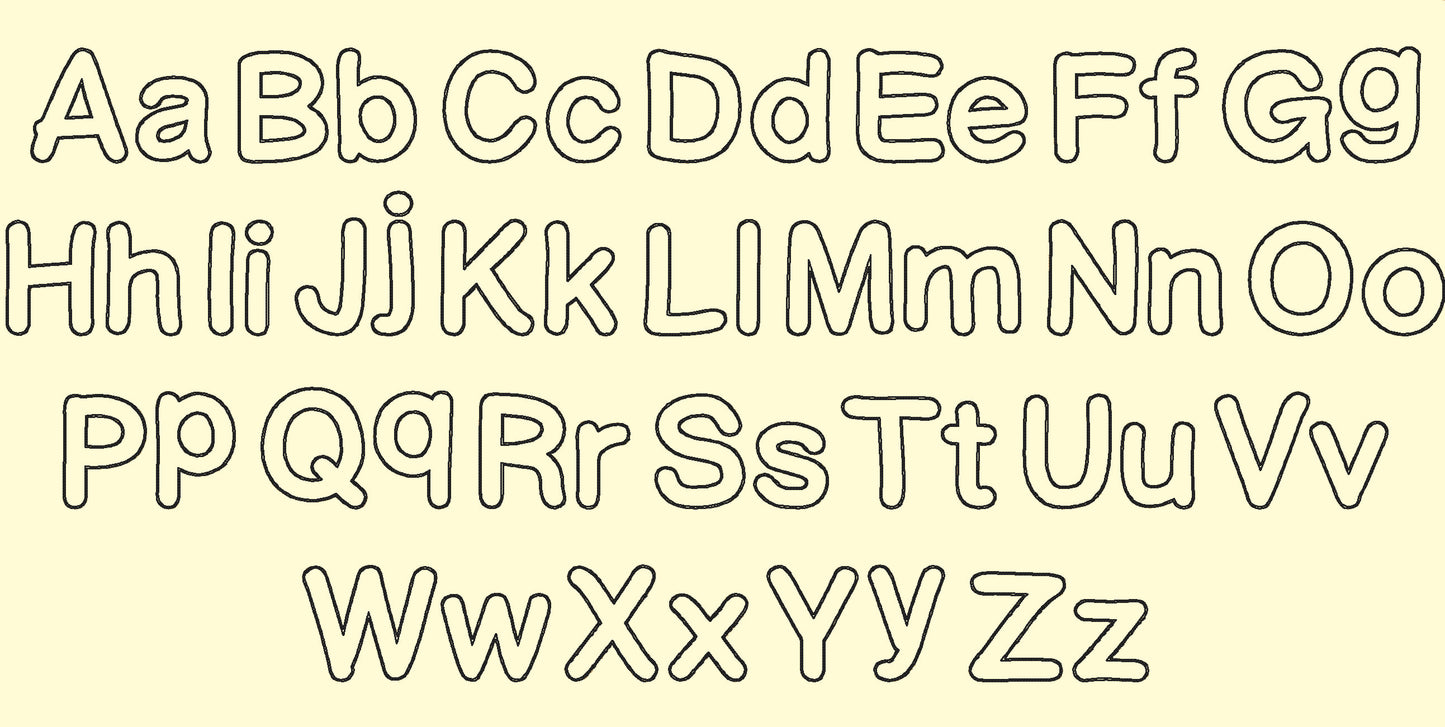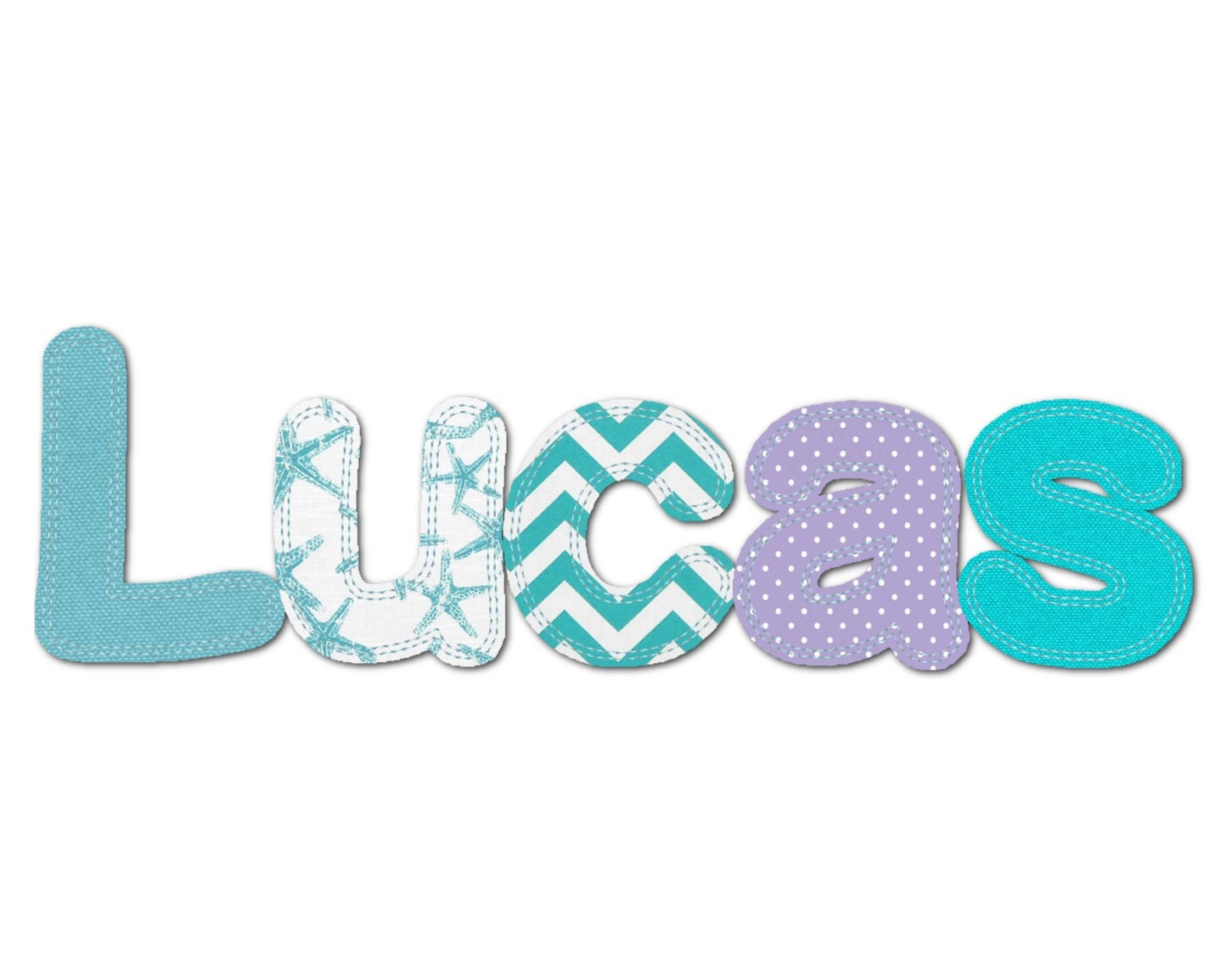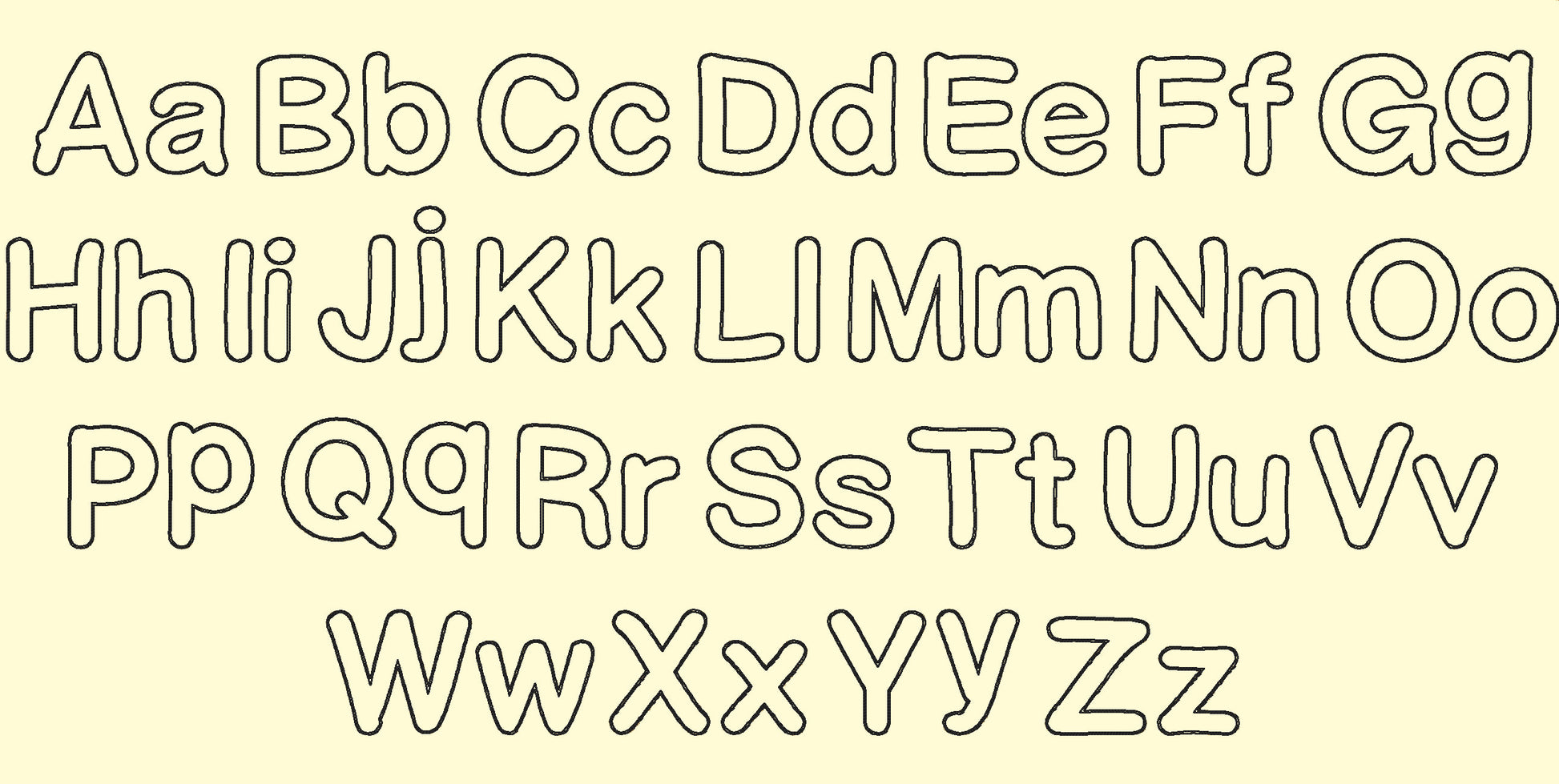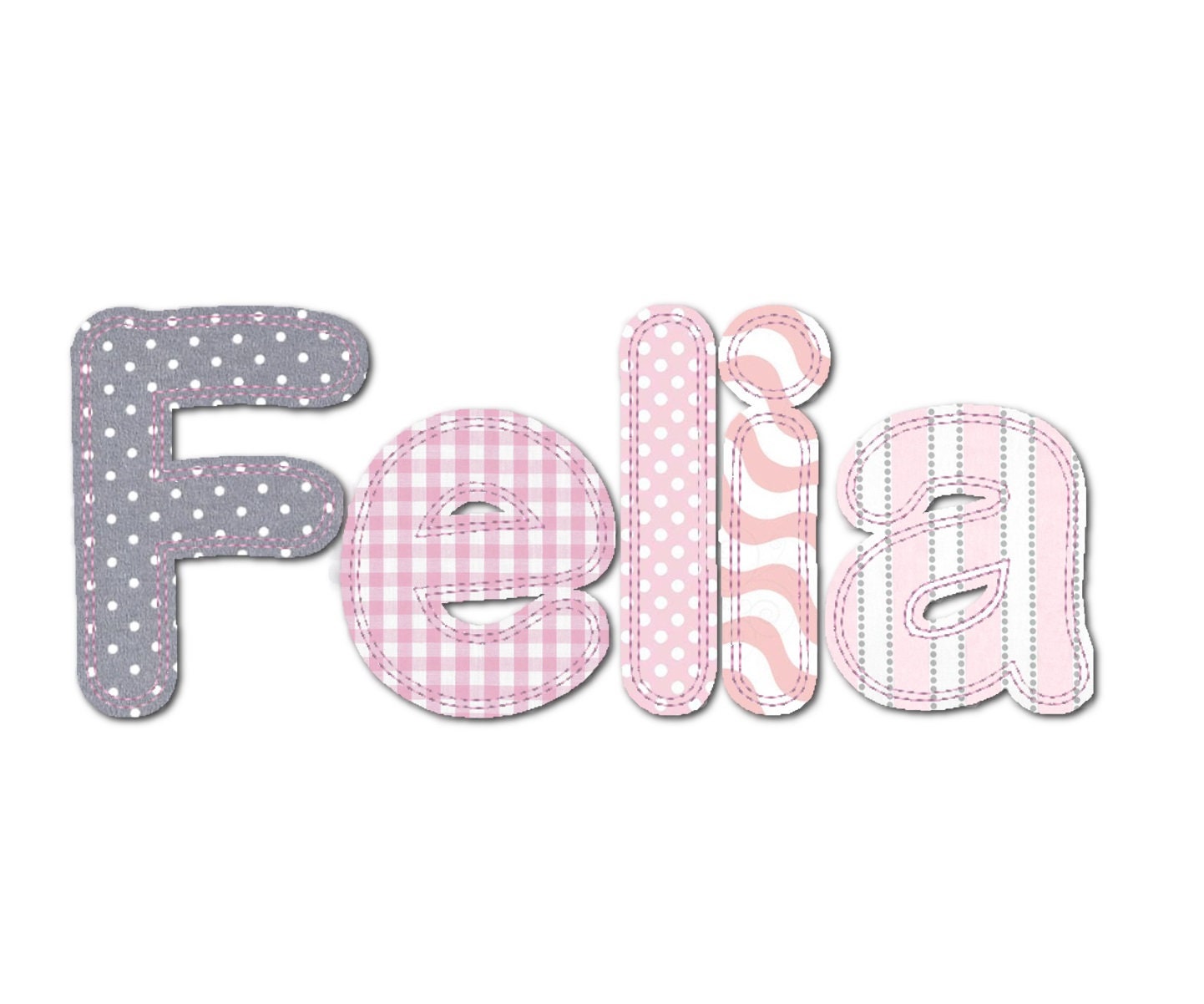
Or click to open the linkA kids' raggedy edge applique font: stitch, then trim the fabric for a soft frayed look. Cozy for names on quilts, pillows and clothes.